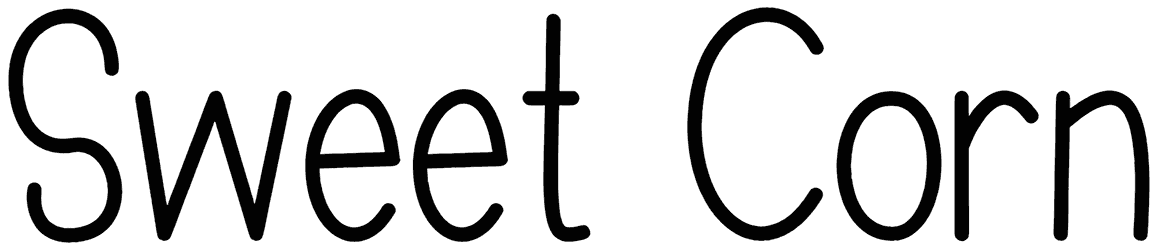
Sweet Corn Font
Introducing Sweet Corn, a casual handwriten font that comes with a jaunty style, so it feels really elegant and flowing on a wide range of graphic purposes such as book covers, gift cards, illustrations, flyers, and digital banners. Its characters carry a sense of delicacy, softness, dynamic, and drama, thus impressing the audience will be easier than ever.